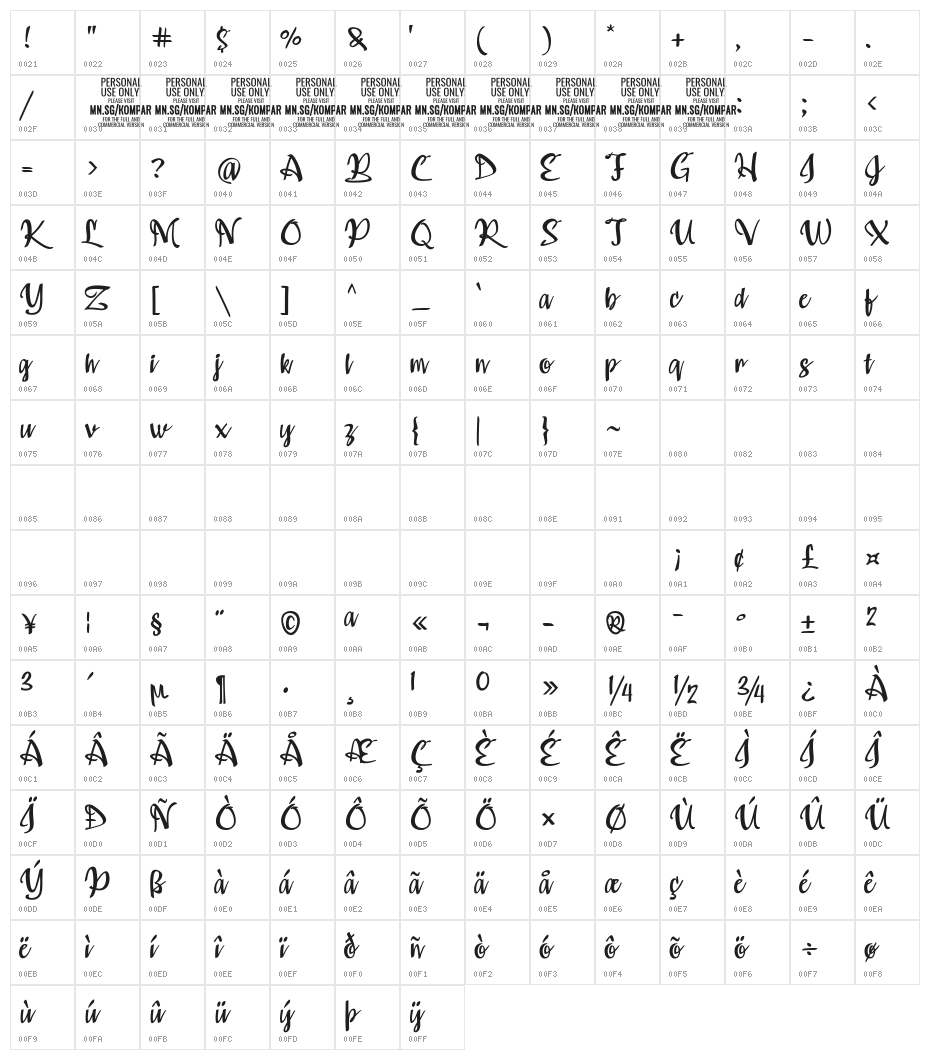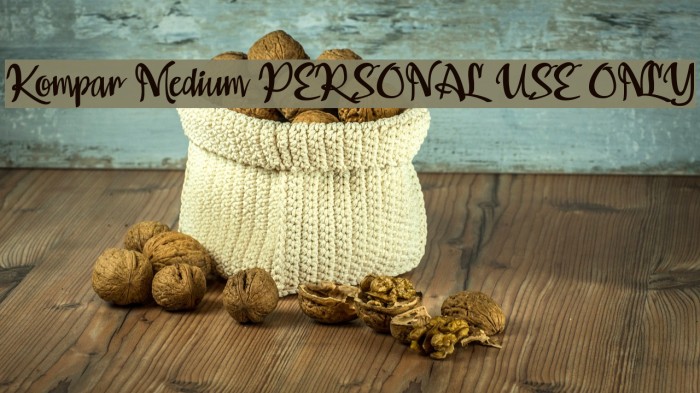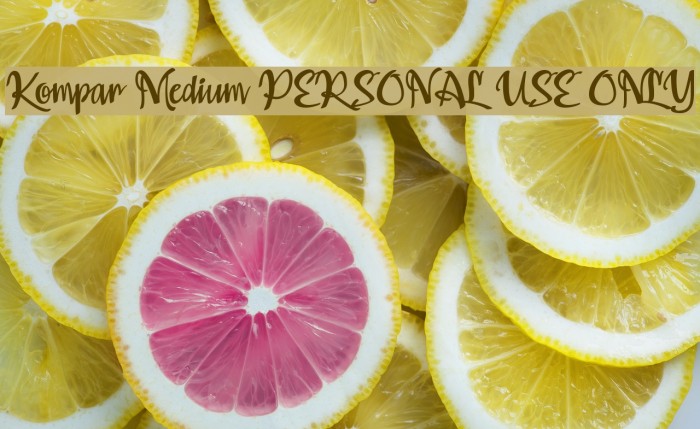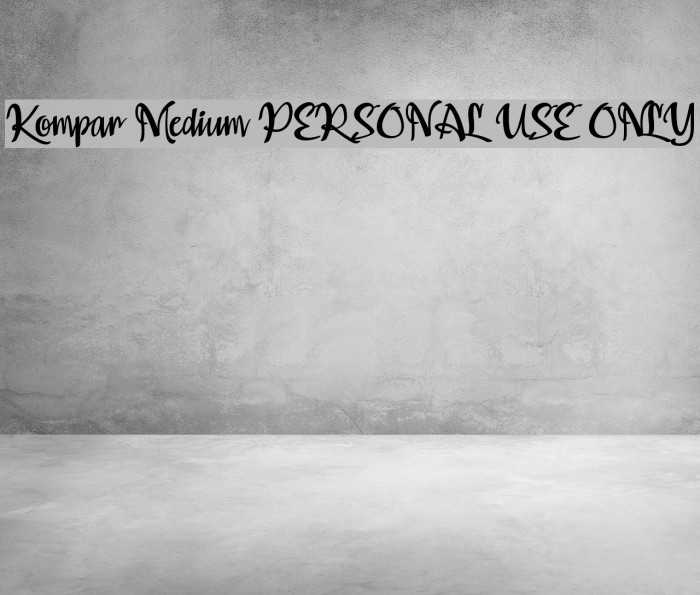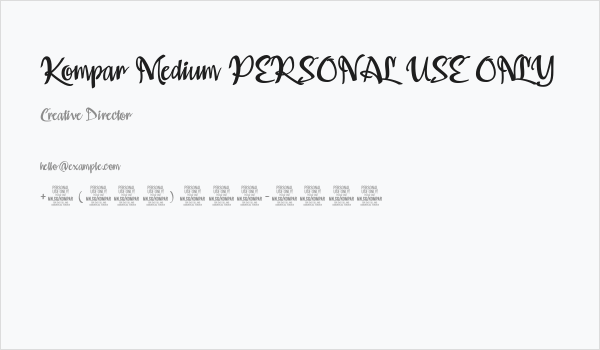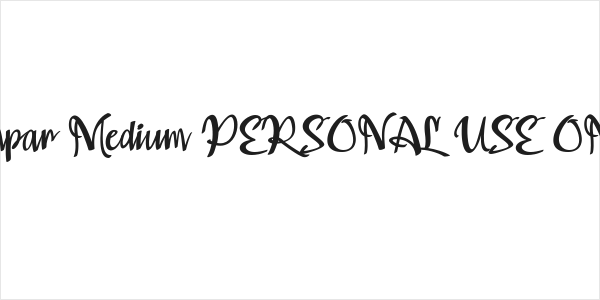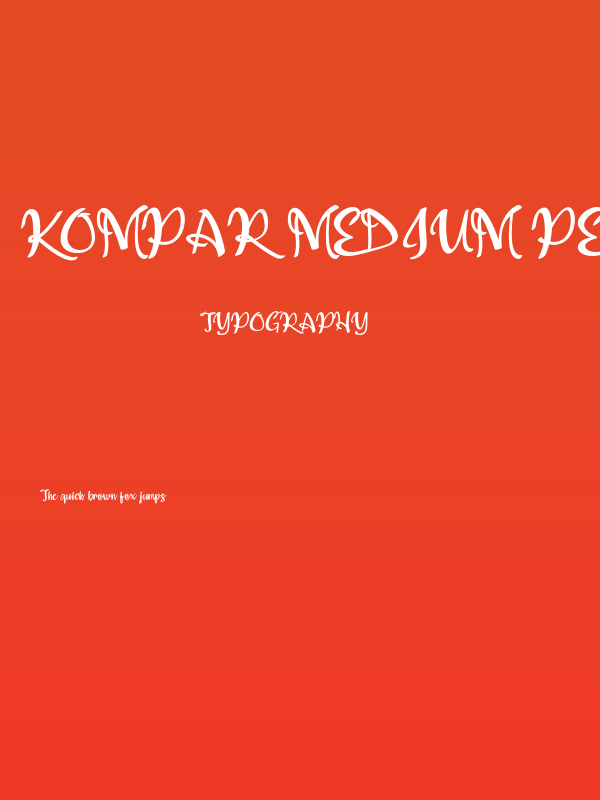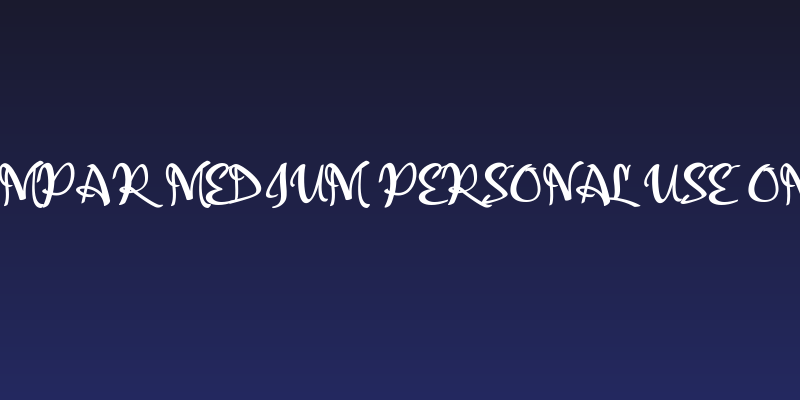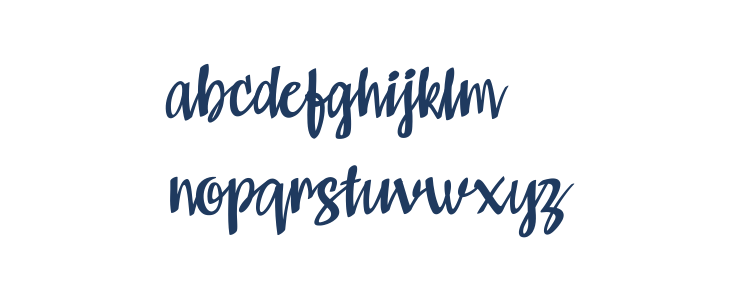
Kompar Medium PERSONAL USE ONLY Font
Kompar Medium PERSONAL USE ONLY Description
This font features a dynamic and flowing script style, characterized by its elegant and artistic curves. The uppercase letters exhibit a sense of movement and flair, with exaggerated loops and swashes that add a decorative touch. The lowercase letters maintain a cohesive style, with smooth connections and a handwritten feel. The numerals and special characters are designed to complement the overall aesthetic, ensuring consistency across all glyphs. This font's unique style makes it suitable for creative and expressive design projects.
| Proposed Projects | Ideal for wedding invitations, branding, logos, and artistic posters. |